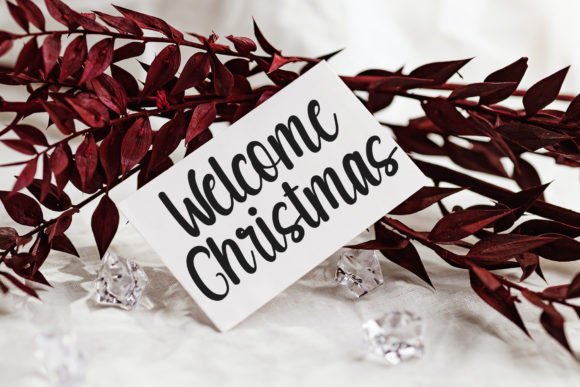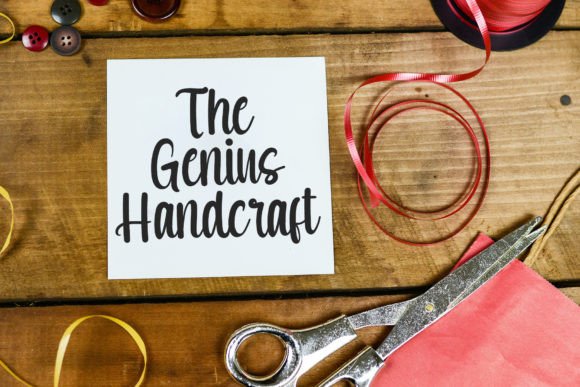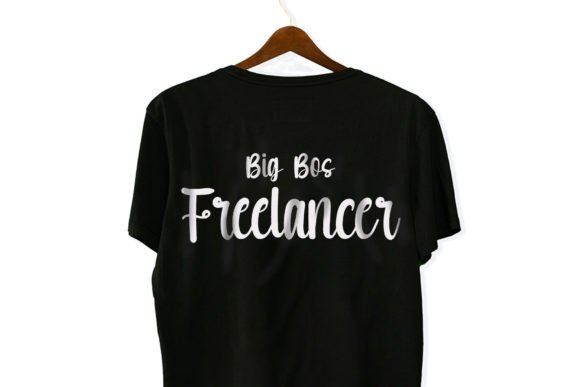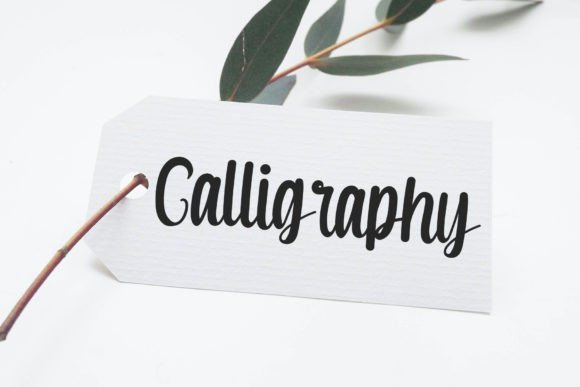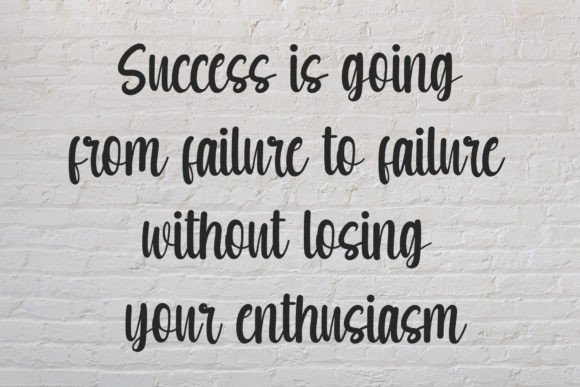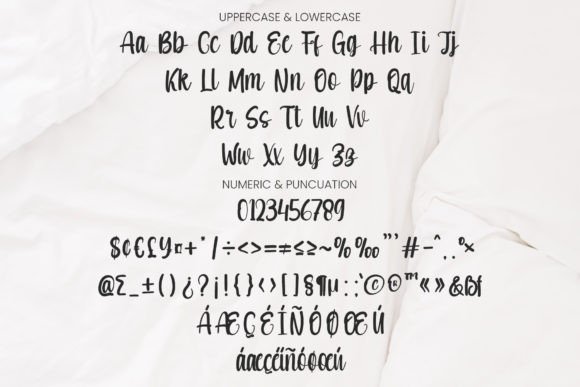
Introduction to Krisan Font
Krisan is an elegant and dainty handwritten font that features sweet and delicate swashes.
Krisan is an elegant and dainty handwritten font that features sweet and delicate swashes. This original look will appeal to a wide range of crafty ideas, from letterheads and titles to stationery
Key Features of Krisan Font